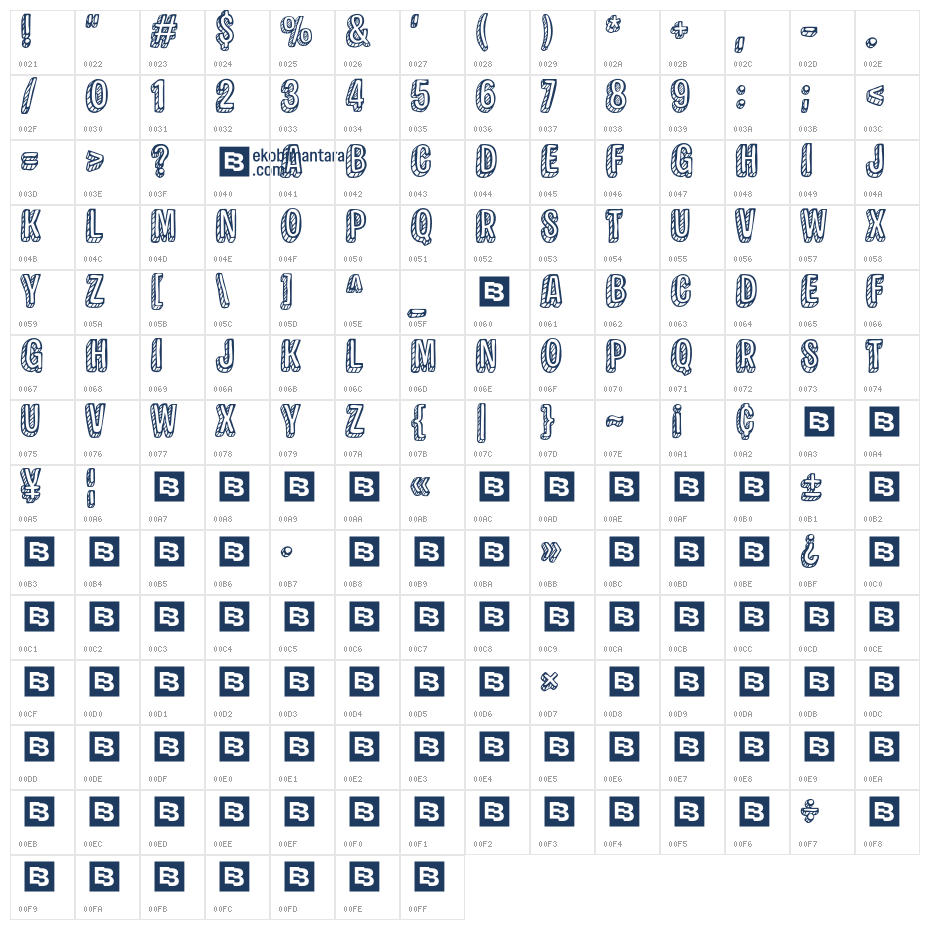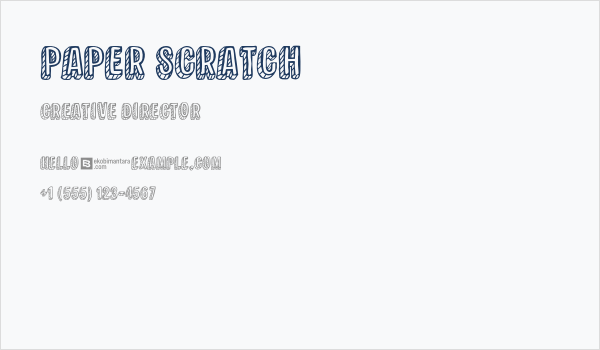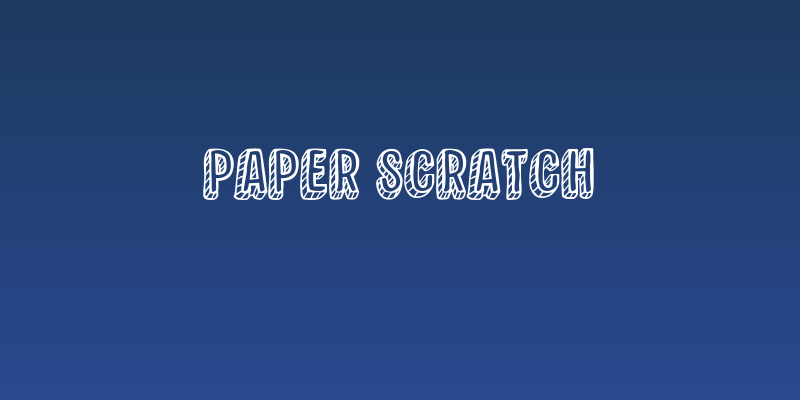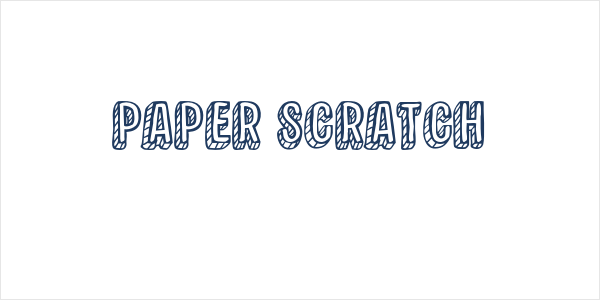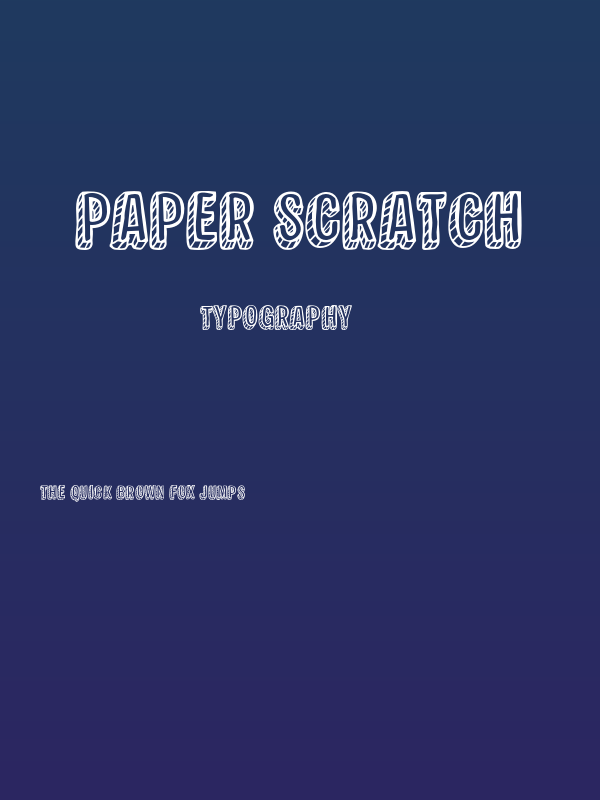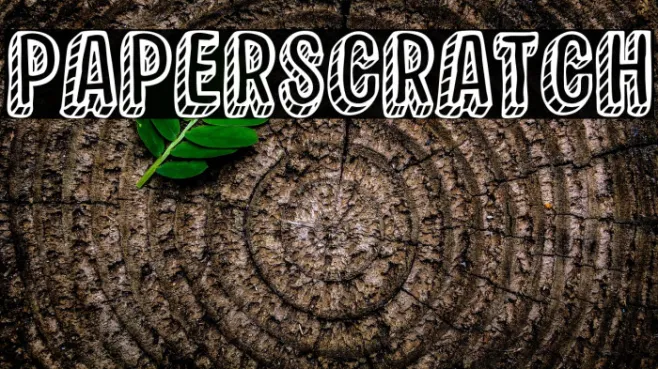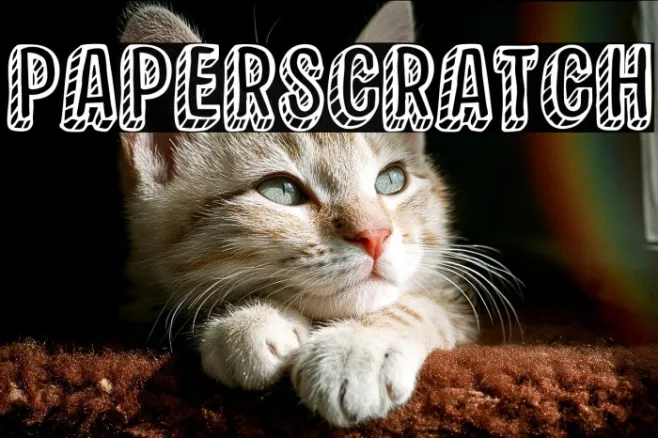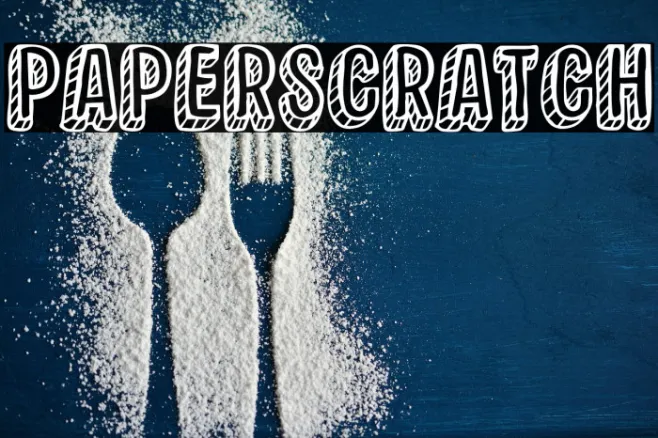
Paper Scratch Font
Paper Scratch Description
A playful, hand-drawn style font with a sketchy, outlined appearance, featuring both uppercase and lowercase letters, numbers, and common punctuation.
| Overall Style | Playful, Hand-drawn, Casual |
| Use Case | Headlines, Posters, Invitations, Logos |